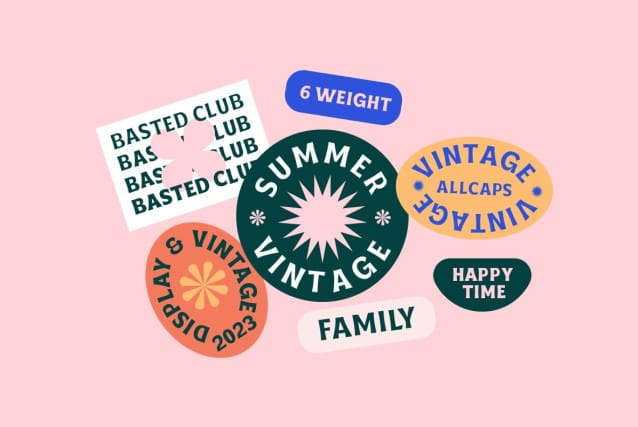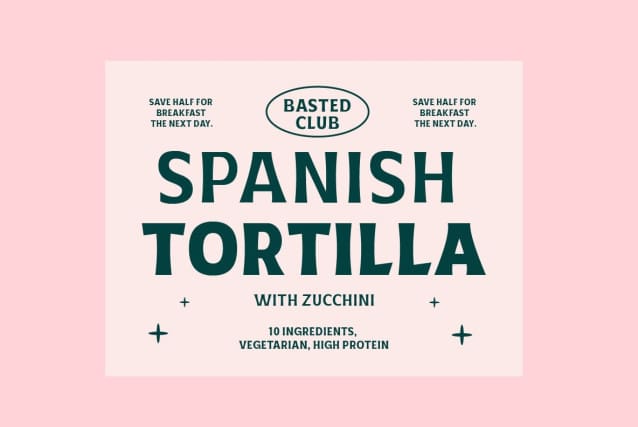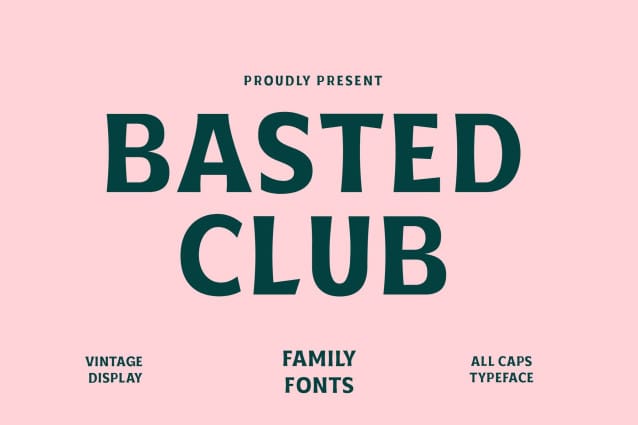
Basted Clubs Font Family
Basted Clubs Font Family is a font family inspired by the retro aesthetic and style of old nightclub typography. This font has a classic and vintage feel with strong and firm letterforms.
Consisting of Regular, Medium, Semi Bold, Bold and Black font variants, this font is suitable for design projects. This font is capable of creating a clean and bold look.